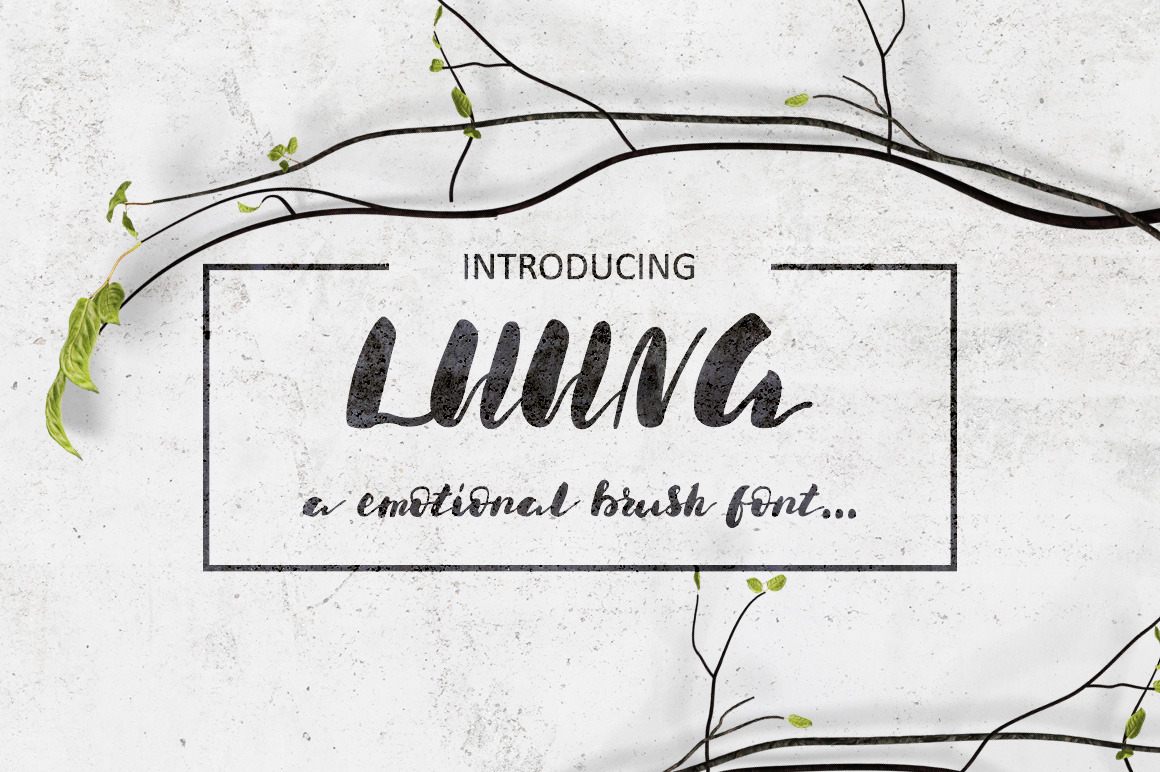
Luuna. Emotional Brush Font
Hello! This is my new handmade brush font Luuna! This font is very calm, but at the same time and a little playful :) This is a great decoration element for your belongings, interior, pillows, shirts, posters, prints, weddings, apparel, packaging, invites, etc. Also you can place these phrases to your photos.